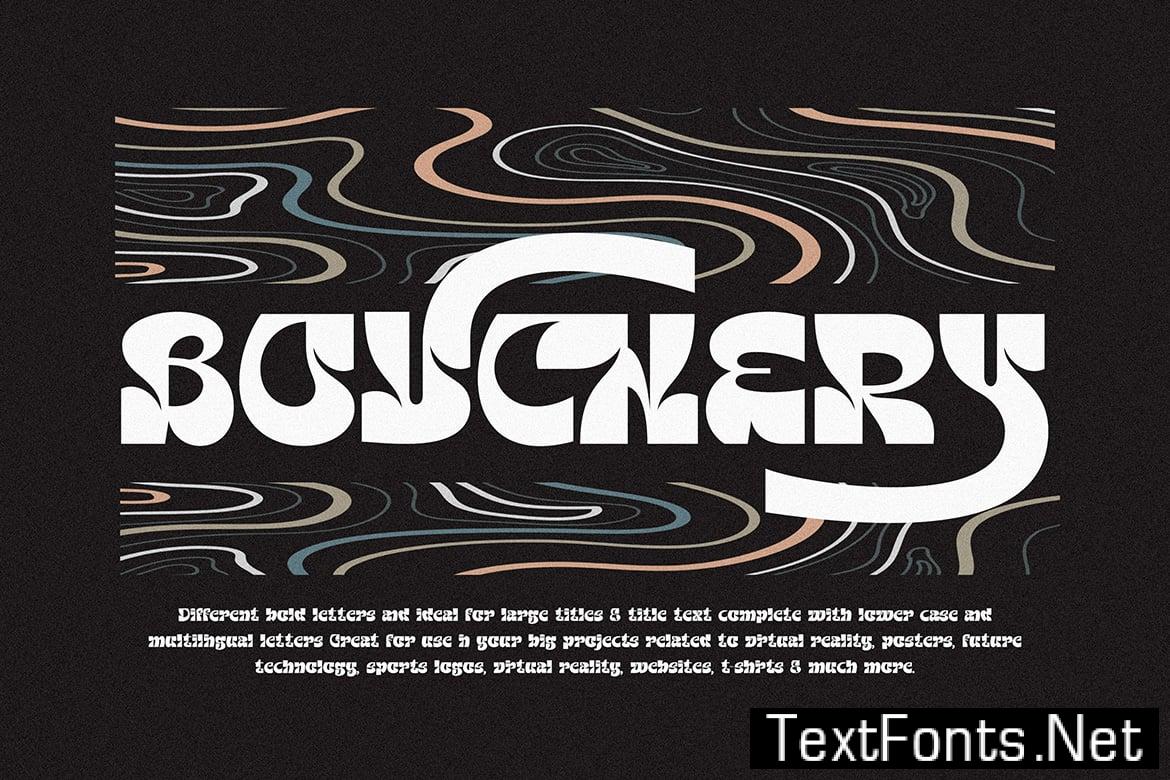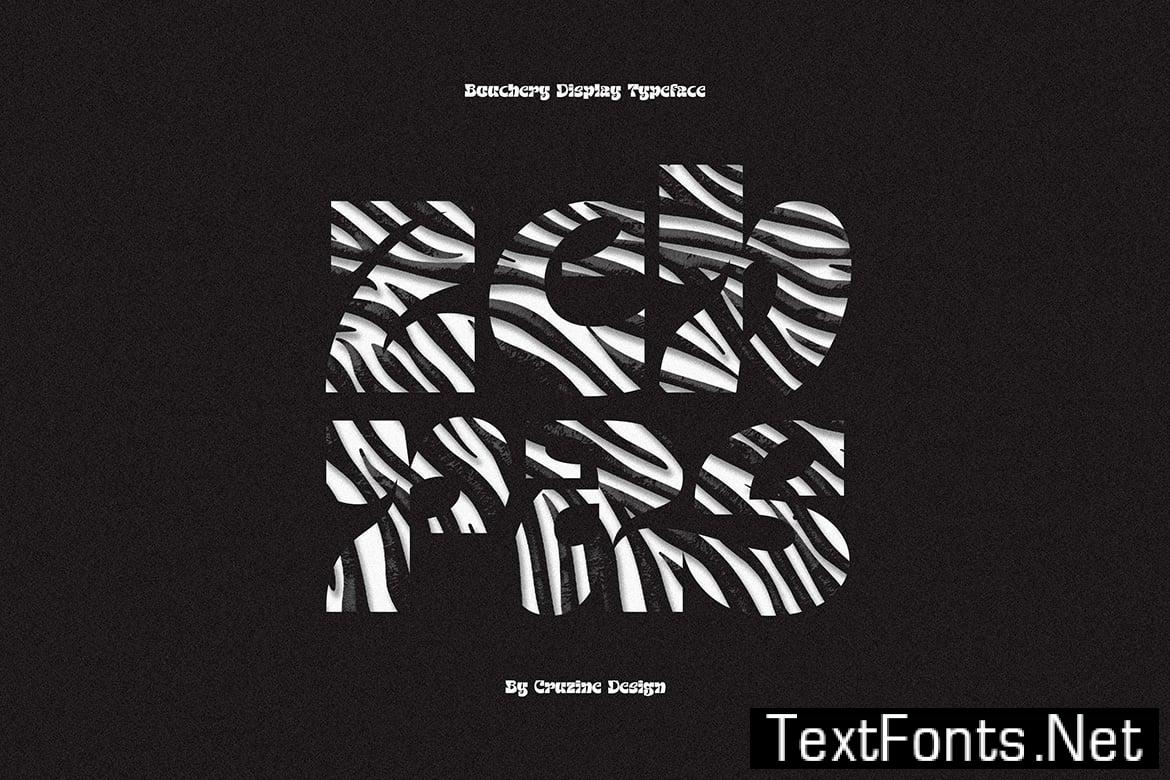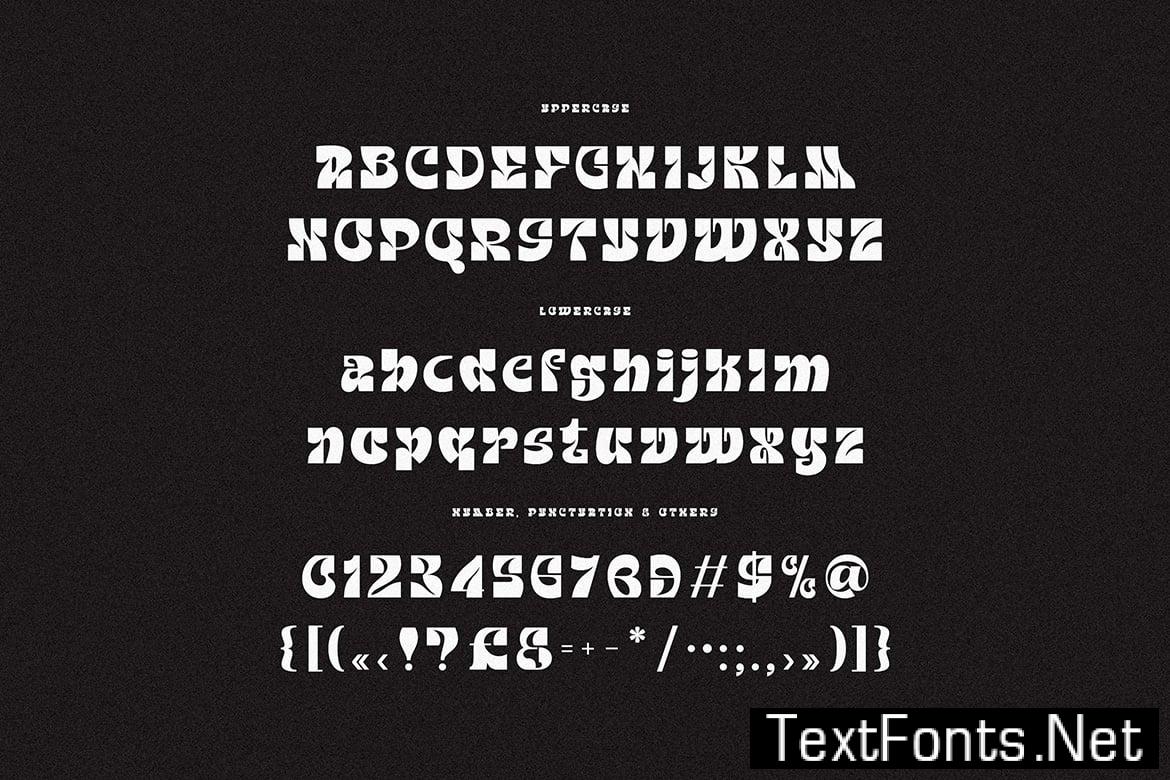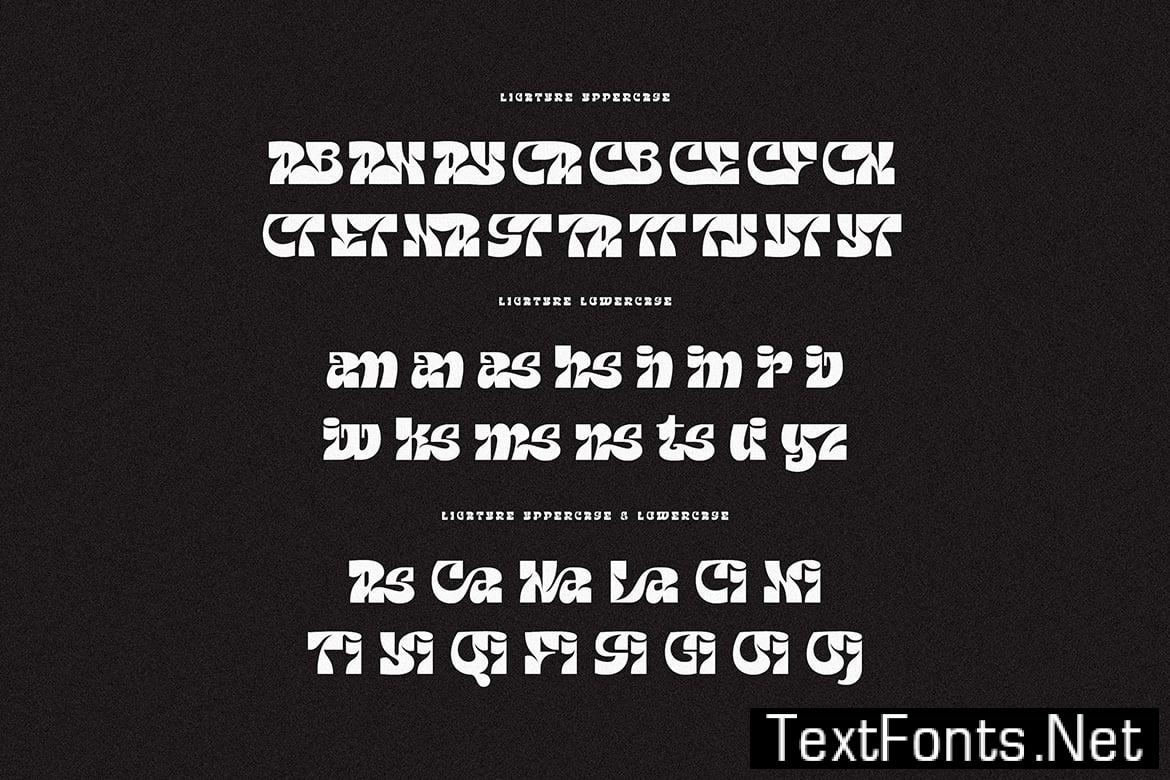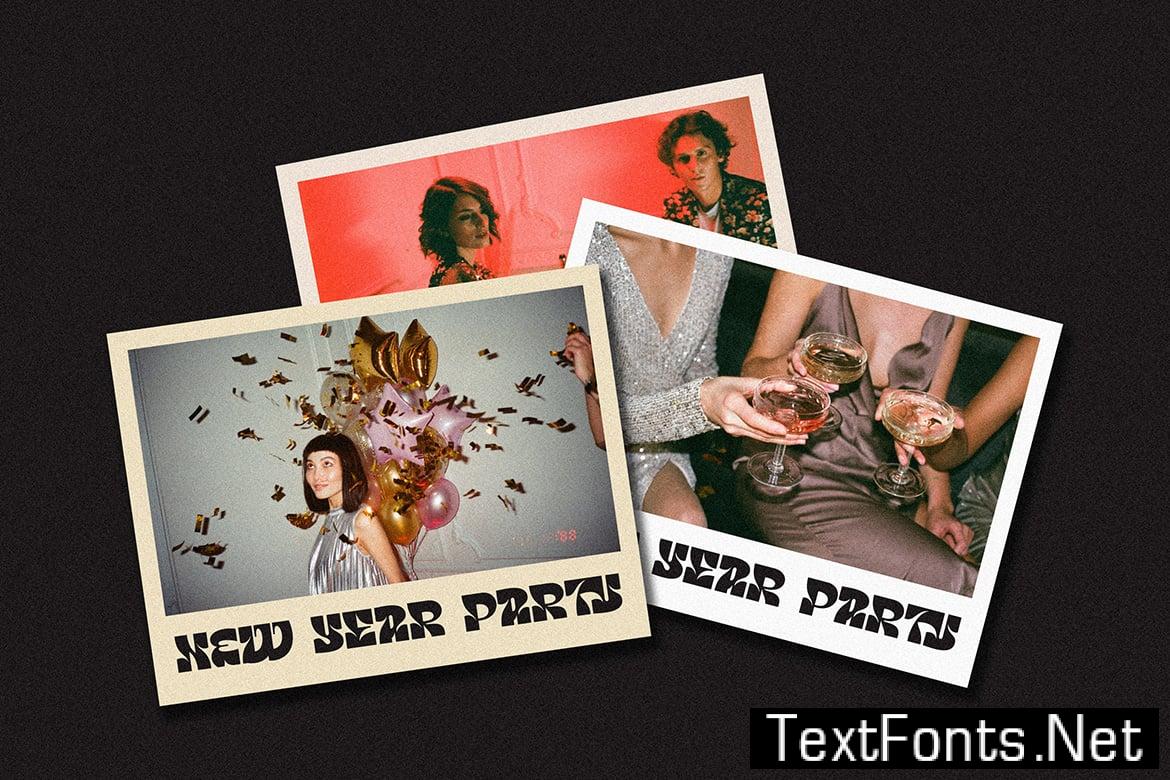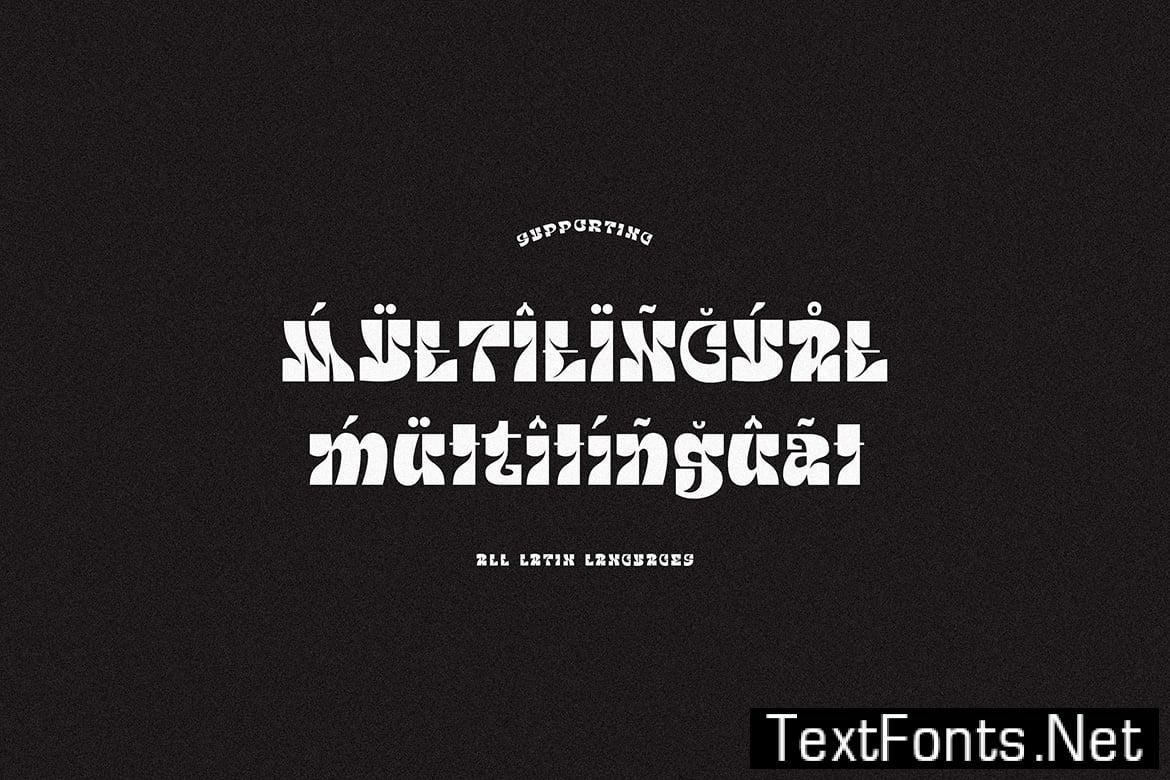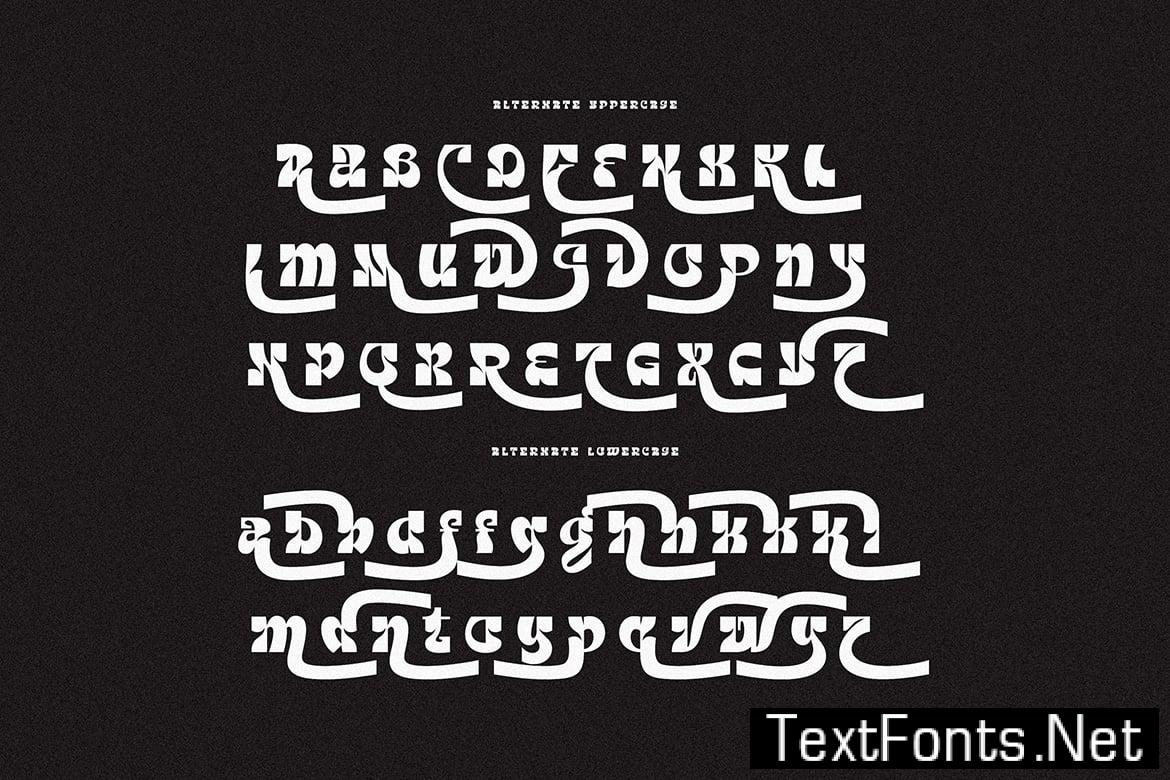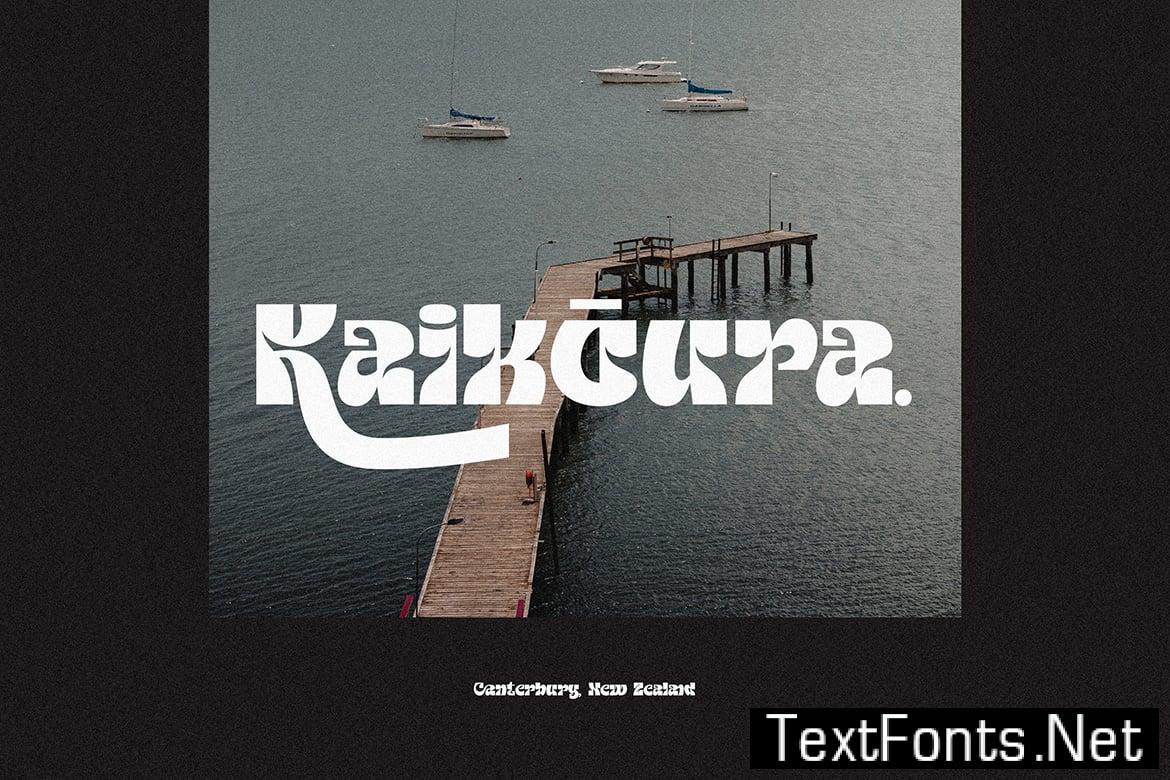
Trendy, unique, artistic, creative, groovy & bold style display font for your new fancy projects. Stylish, creative and futuristic style on Bouchery font will be great for any modern or retro branding project. Lot of alternates and ligatures will help you to create unique and original logo design or website header! Enjoy 🙂
– Alternate characters
– Lot of ligatures
– Great for modern branding projects!